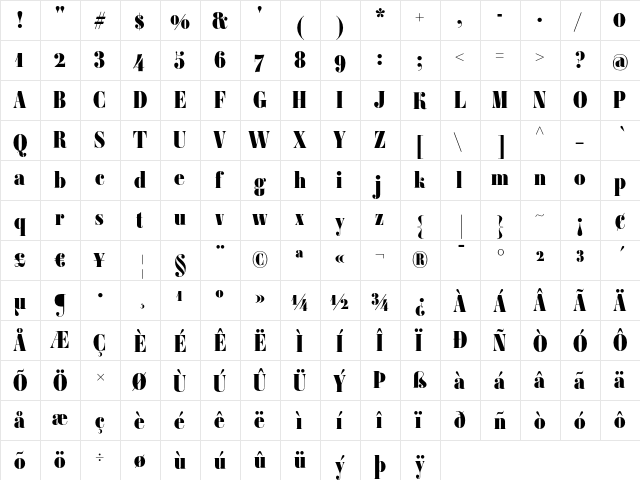
Ambroise Firmin Black
Design Context for Ambroise Firmin Typeface
Ambroise Firmin takes a measured approach to typography — its balanced proportions and neutral character make it a reliable workhorse for both digital and print work.